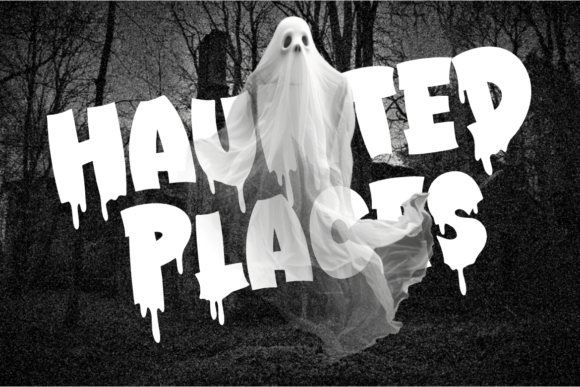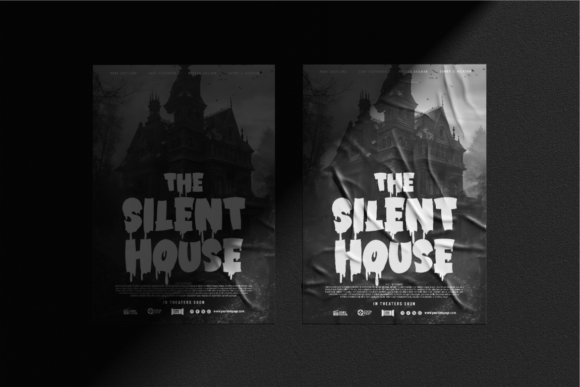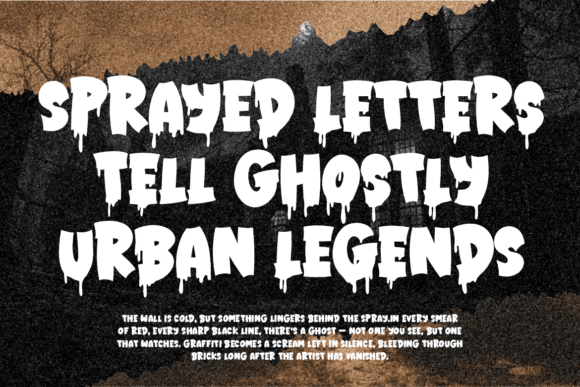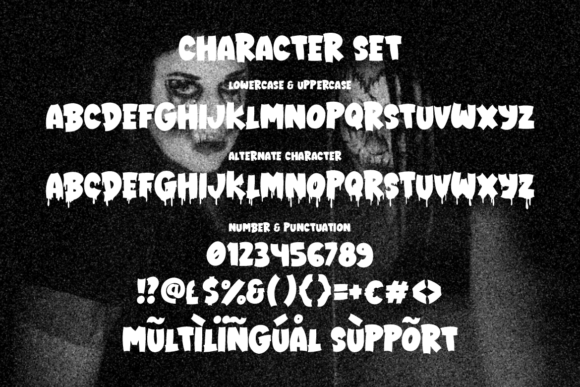
Introduction to Rattle Dread Font
Have you ever found yourself wandering through a dimly lit alleyway, surrounded by the eerie glow of streetlights, and stumbled upon a mysterious graffiti tag that sends shivers down your spine? That’s the exact atmosphere Rattle Dread Font embodies – a chilling, rebellious presence that screams tension and fear.
As designers, we’re constantly on the lookout for the perfect font to elevate our creative projects and leave a lasting impression. That’s where Rattle Dread Font comes in – a high-quality, free download that’s perfect for designs that demand a dark, urban vibe. With its gritty texture and eerie balance, this font turns every headline into a scream and every label into a legend. Whether you’re designing horror movie posters, haunted event flyers, or creepy packaging, Rattle Dread Font delivers unmistakable shock value.
As a valuable design resource, Rattle Dread Font offers a transparent background, making it easy to incorporate into your design workflow. With its heavy, uneven uppercase forms and alternate set of “bleeding” characters, this font is perfect for designers looking to add an extra layer of drama to their projects. So why wait? Dive into the shadows with Rattle Dread Font and unleash your creativity.
Key Features of Rattle Dread Font
- High-quality design resource for creative projects, perfect for adding a touch of edginess.
- Rattle Dread Font features a transparent background, allowing for seamless integration with any design element.
- The font is available in 4 different weights (Thin, Light, Regular, Bold) and 2 styles (Regular and Italic), providing versatility for designers.
- The unique, distressed design of Rattle Dread Font adds a touch of grit and personality to any creative project.
- Perfect for designers and artists looking for a high-quality, free design resource to elevate their work.
Honest Review: Rattle Dread Font
I recently stumbled upon the Rattle Dread Font while searching for a unique design resource for a creative project. As a designer, I’m always on the lookout for high-quality fonts that can elevate my work and help me stand out. Let’s dive into my experience with this font.
- The font has a bold, gothic feel that’s perfect for projects that need a bit of edge.
- The transparent background makes it easy to overlay on top of other design elements.
- The font is highly customizable, allowing you to adjust the weight, size, and spacing to suit your needs.
- The font may be a bit too bold for projects that require a more subtle look.
- The font family is relatively small, with only a few weights and styles to choose from.
Overall, I’m impressed with the Rattle Dread Font. While it may have some limitations, it’s a great resource for designers who want to add a bit of attitude to their work. If you’re looking for a unique font for your next creative project, I’d definitely recommend giving Rattle Dread Font a try.
Tips for Getting the Most Out of Rattle Dread Font
Use Rattle Dread Font on a transparent background to create a striking effect. Experiment with different font sizes and styles to add depth and visual interest to your design. Combine Rattle Dread Font with other design resources, such as graphics and images, to create a cohesive and eye-catching design.
Rattle Dread Font is perfect for a variety of creative projects, including social media graphics, posters, presentations, logos, and typography. It’s also great for free download and use in design resources, such as templates and graphics.